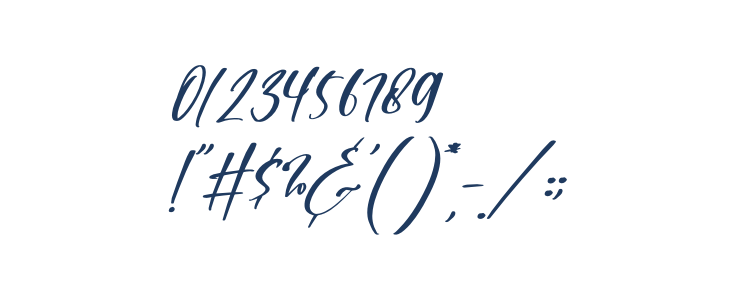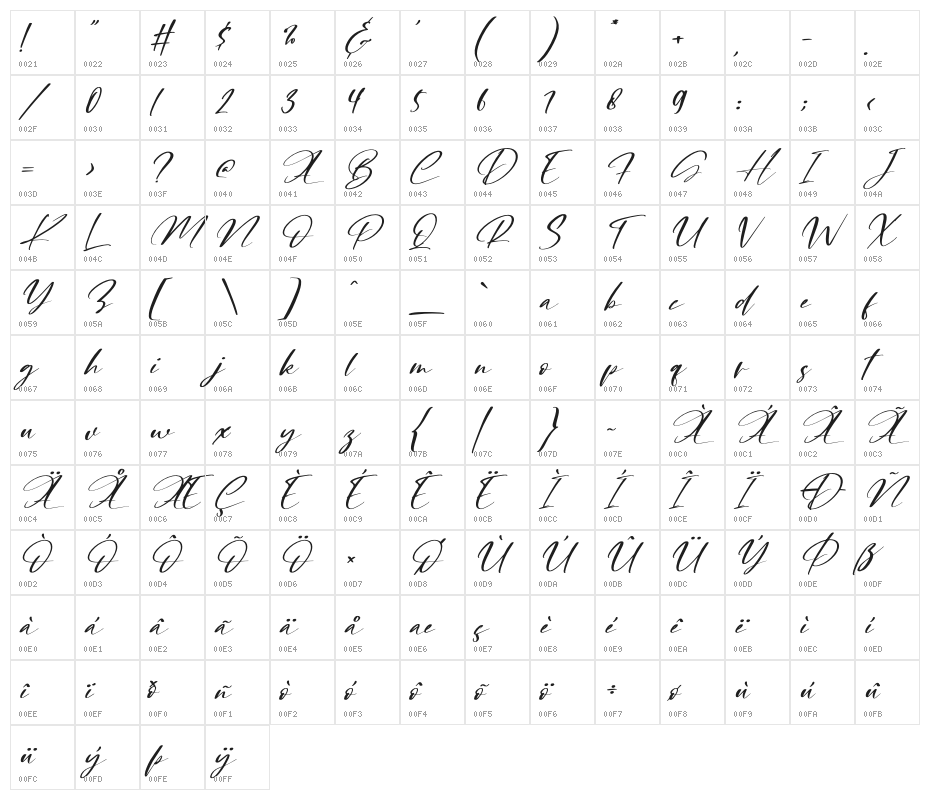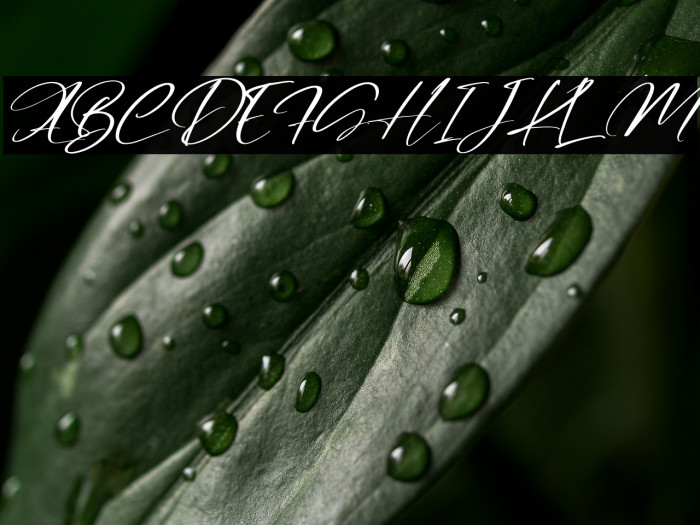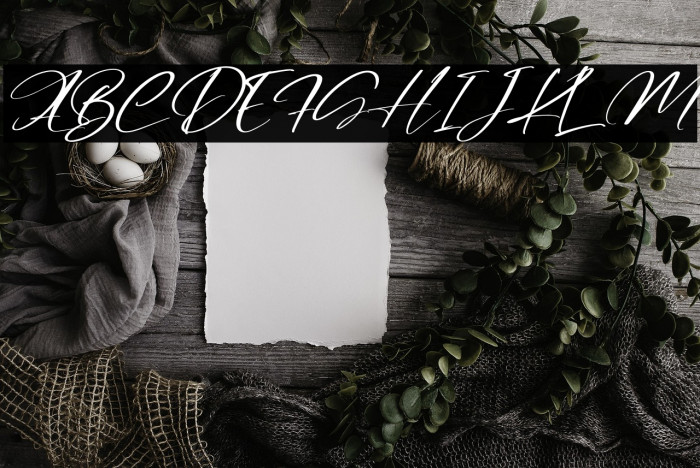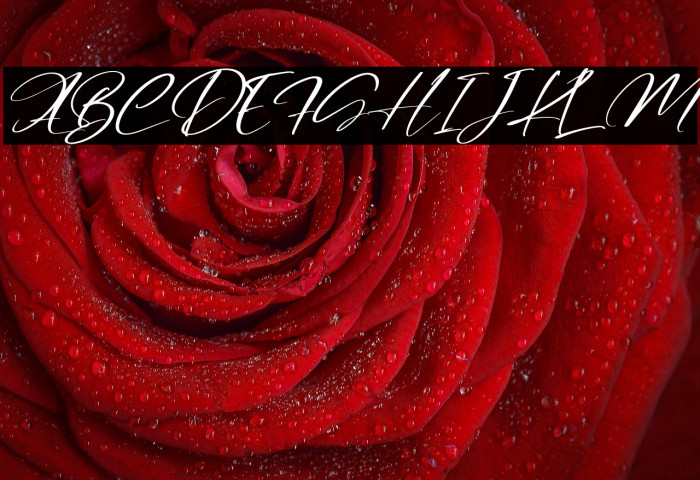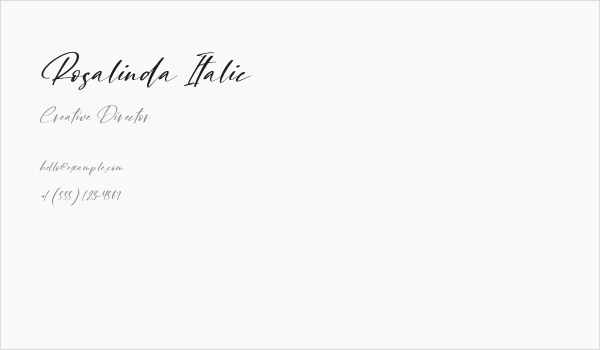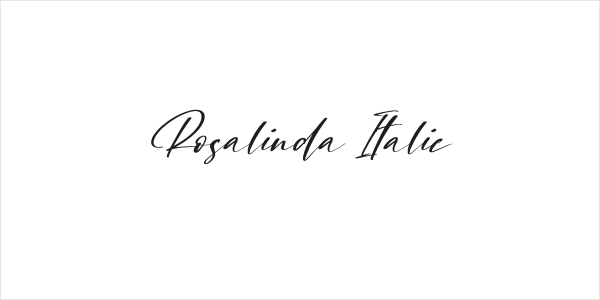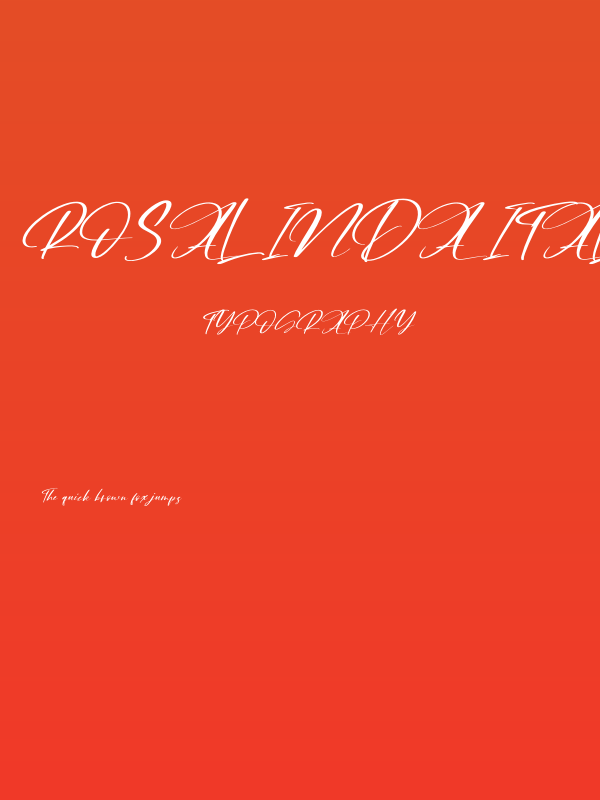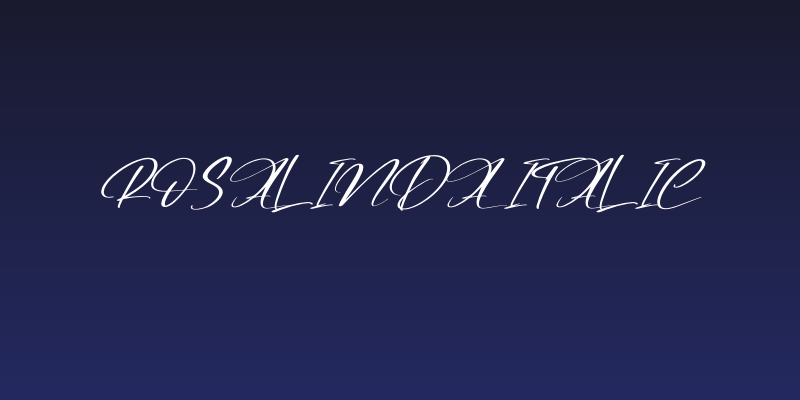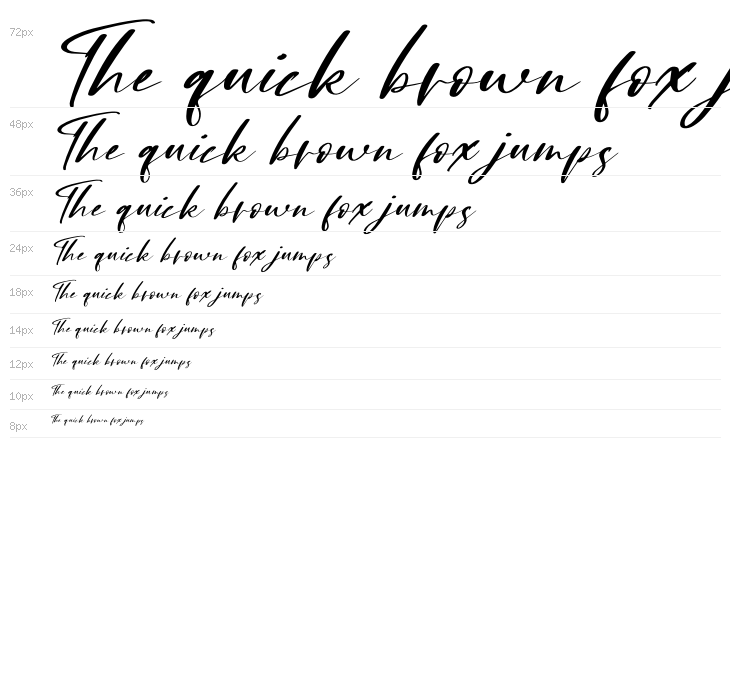
Rosalinda Italic Font
Rosalinda Italic Description
This elegant script font features a flowing, cursive style with a modern touch. The letters are interconnected, creating a seamless and fluid appearance. The uppercase characters are slightly more elaborate, with graceful loops and swashes, while the lowercase letters maintain a consistent rhythm and balance. The numerals and special characters complement the overall aesthetic, adding versatility to the font. Its italic nature enhances the sense of motion and sophistication, making it suitable for a variety of creative applications.
| Proposed Projects | Ideal for wedding invitations, elegant branding, personal signatures, and artistic projects. |